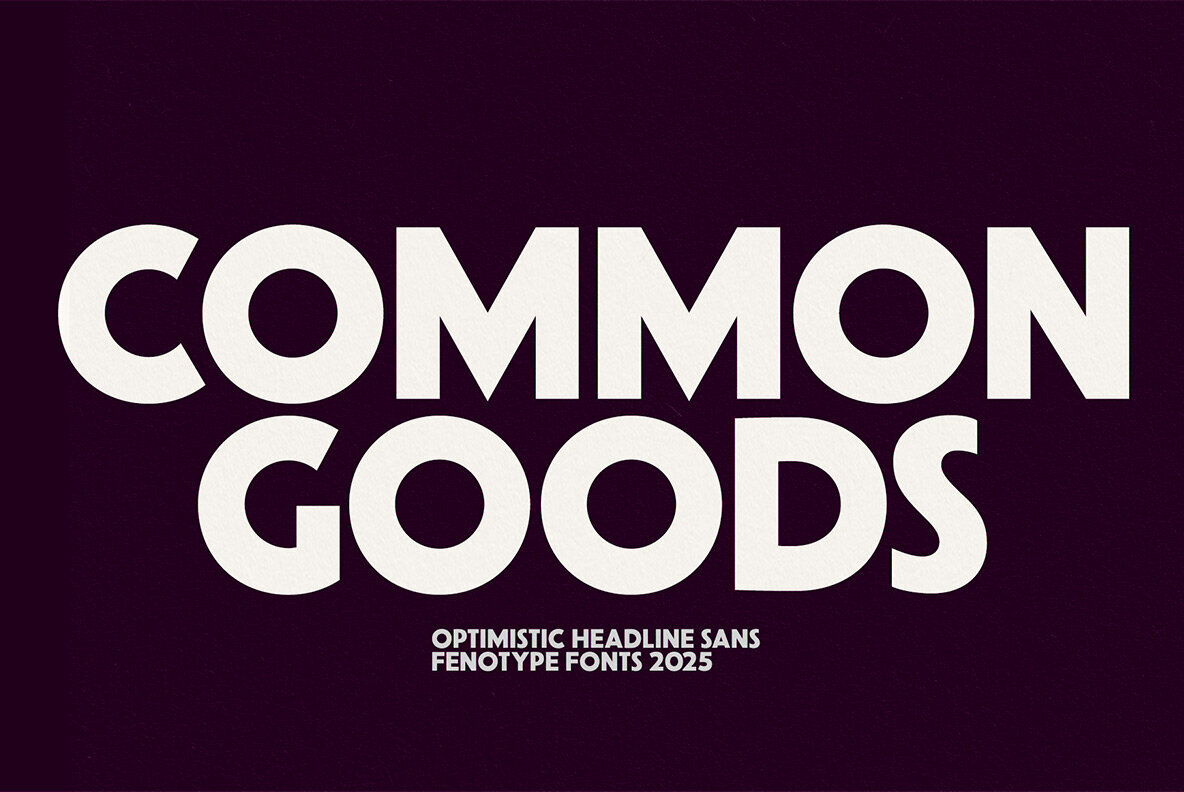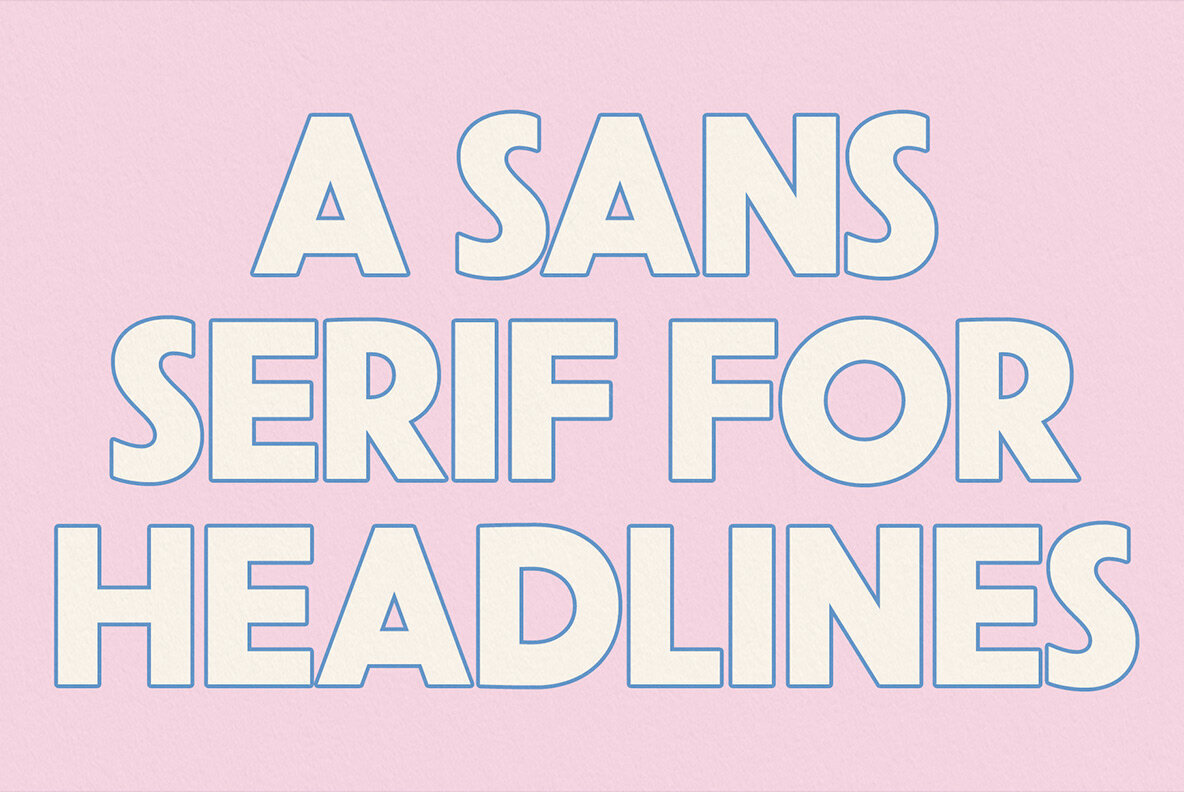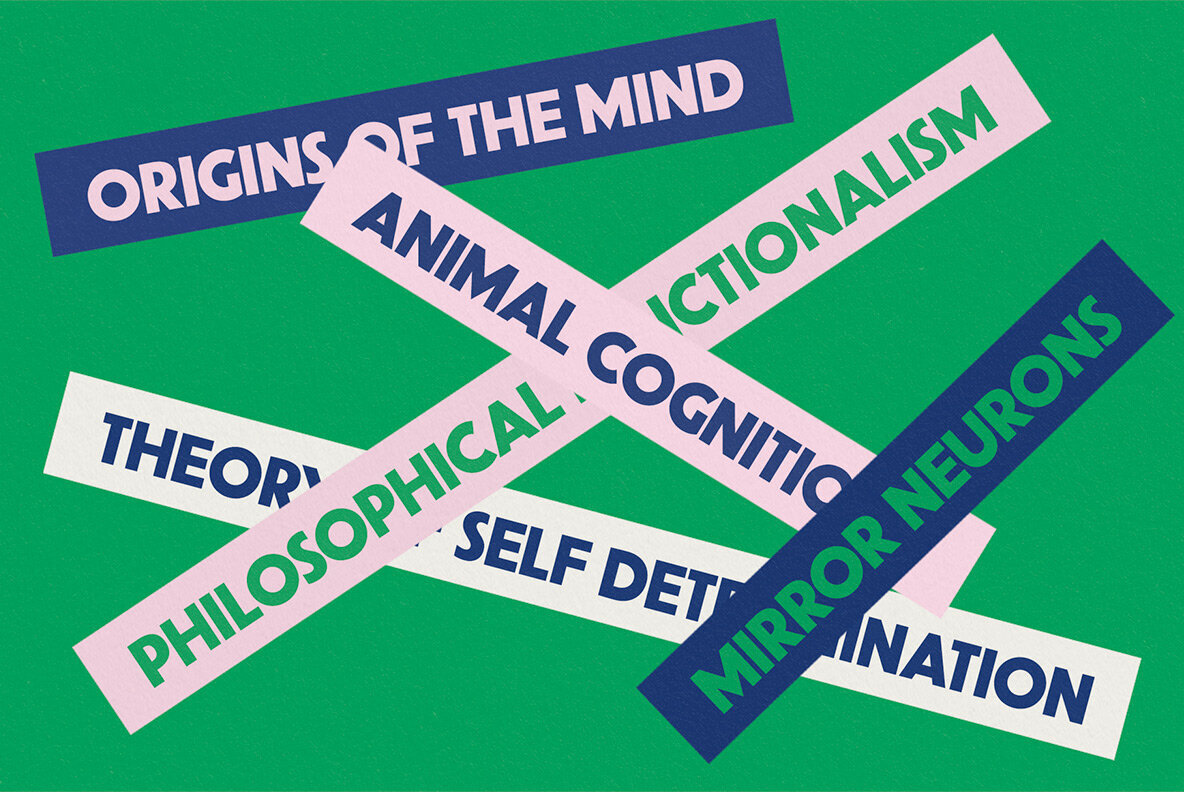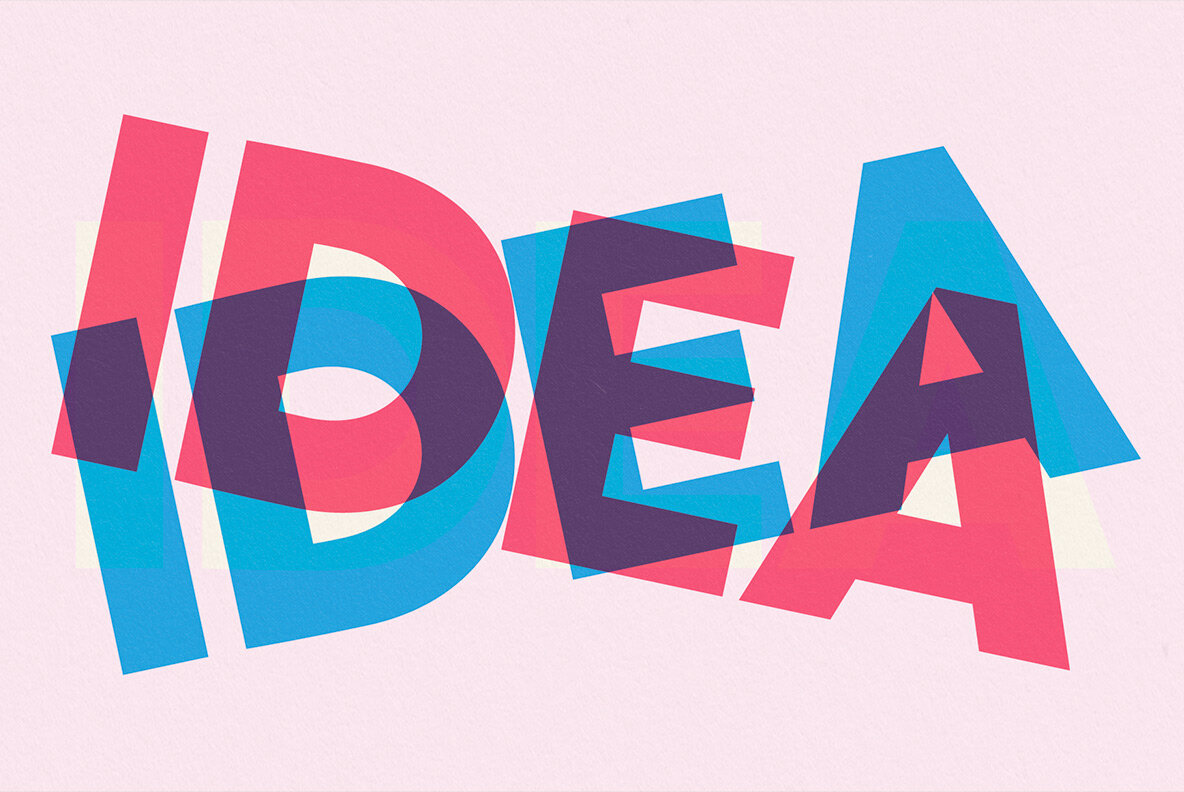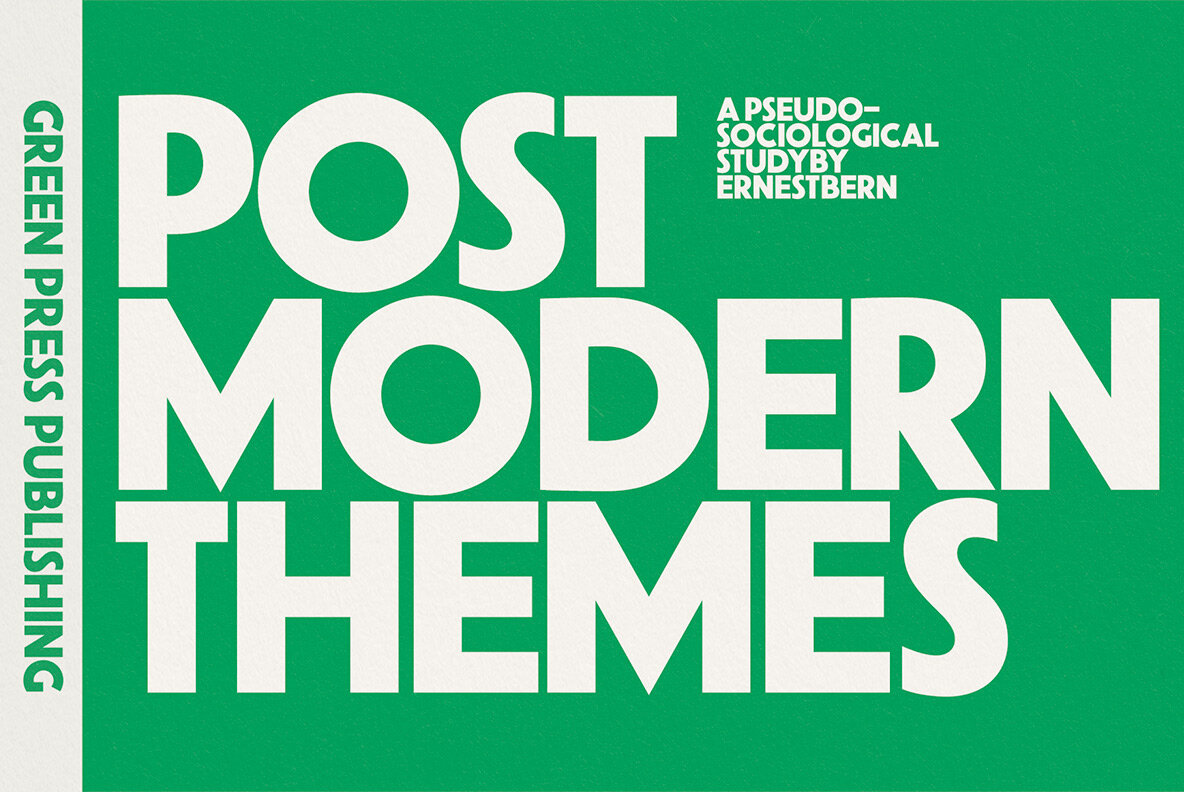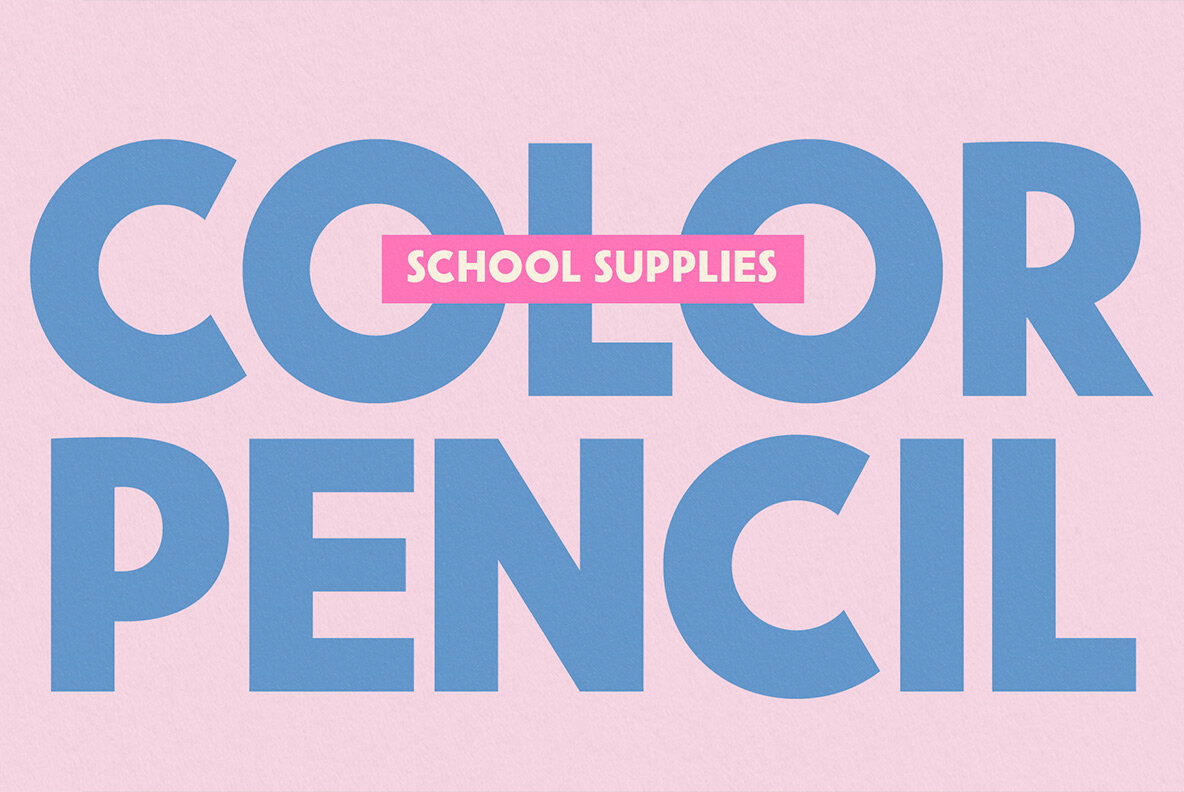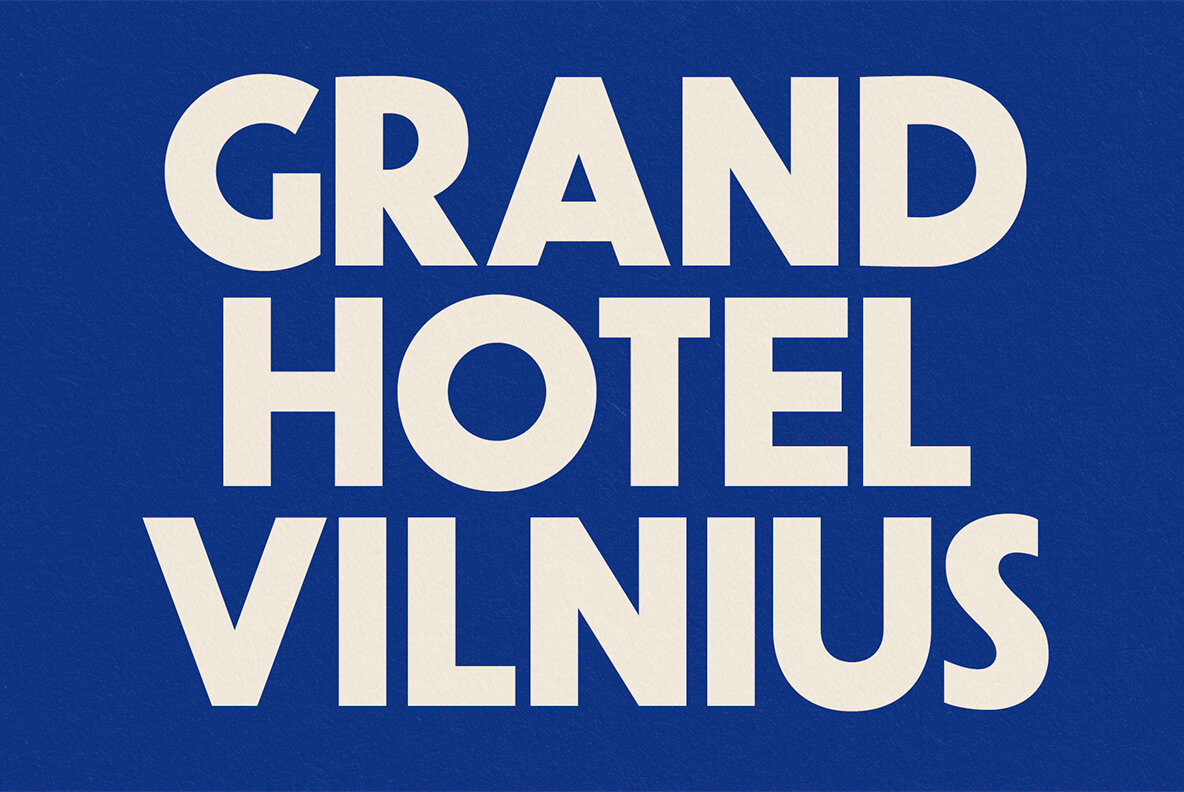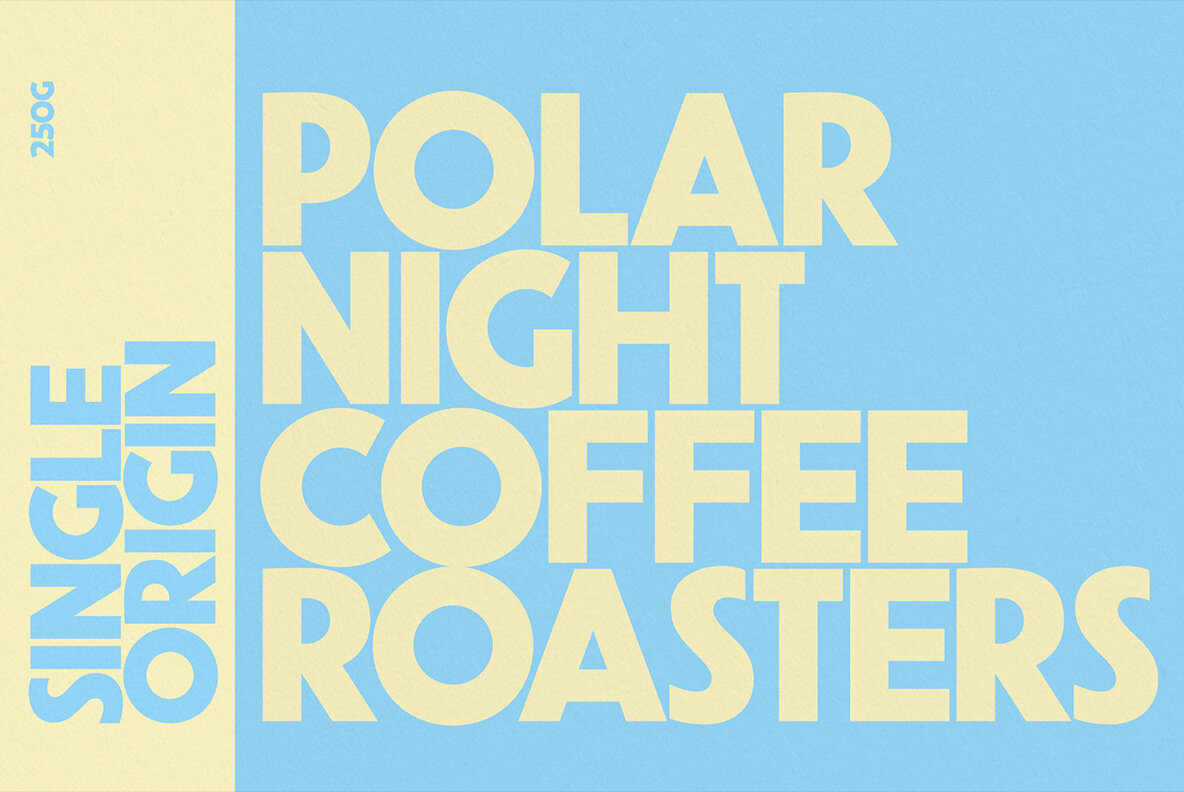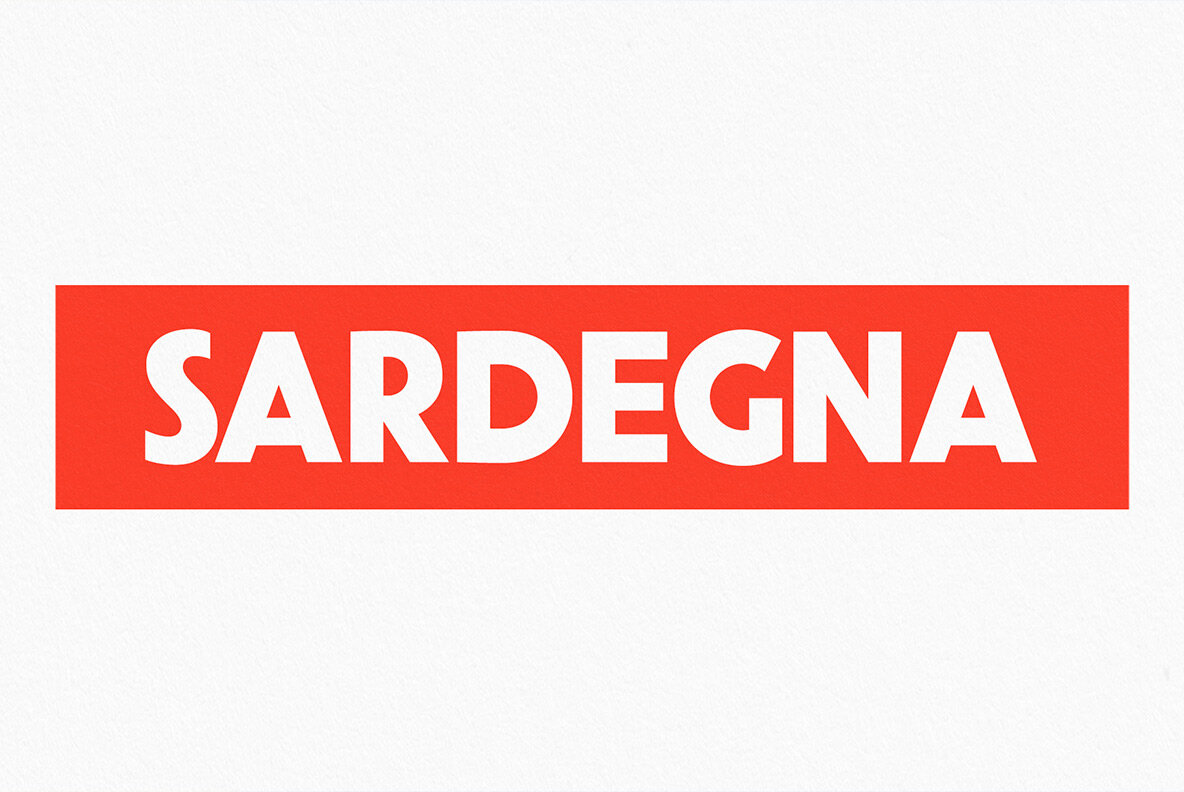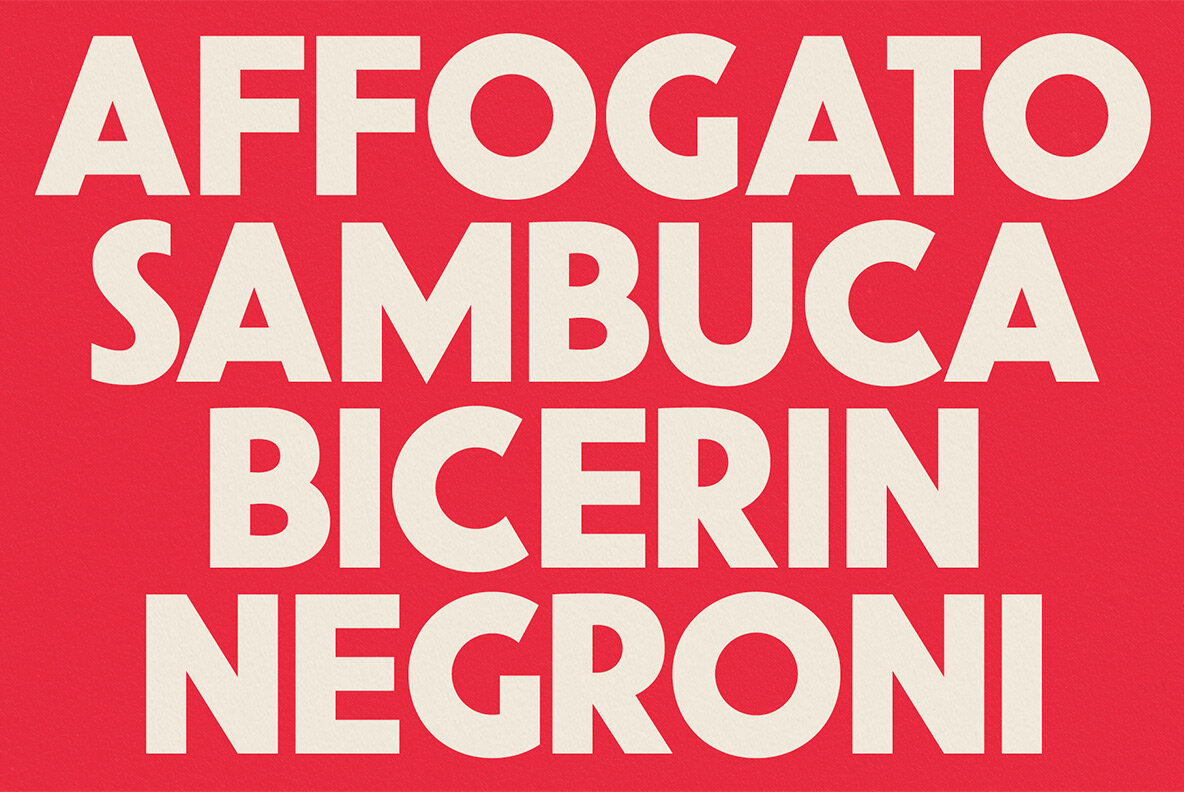
Common Goods Font
Common Goods Bold
Echoing the boldness of last century's modernist typography, Common Goods stands as a testament to strong, clean design. It marries geometric precision with subtle handcrafted details, striking a balance between rigidity and warmth. Features: Embrace the versatile elegance of Common Goods for projects that demand a distinct yet approachable typography choice.Common Goods: Modernist Sans Serif with Personality